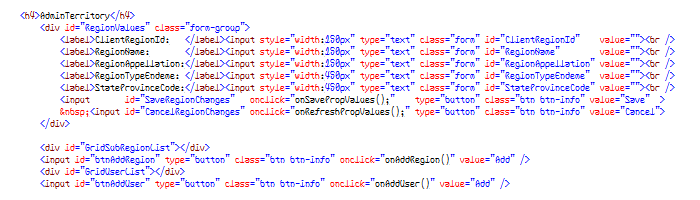
Friendly Geek is the regular version of Friendly Geek Light. Its widths are all 6/6 block rather than 4/6 block. The outlines of the glyphs have generally been left the same, with the insides being filled with 2/6 extra width.